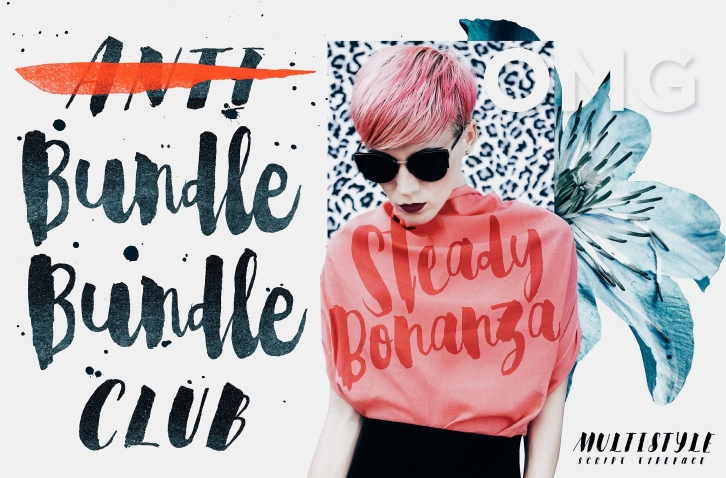
Fashion is a trend, Style lives within a person *Oscar de la Rerta.
I believe everybody's special. You have your own original character in every single appearance. And i feel so addicted to bring that something special in you to be shown to the universe. And that's what it cames from.
Introducing, Steady Bonanza. A versatile hand lettering script typeface to dig up your authentic style. Made from the authenticity of brush and ink character, and delivers with so many style so you can always show up fresh in every use of it.
Undoubtedly fit for your fashion branding, logo, posters, promotions kit, social media post, brochure, quote, lookbook, and a possibility to expand more such as wedding stuff, food and beverage, girly things, hand crafted stuff, you got the full control on it, dont stop yourself!
Steady Bonanza Alfa : An all-caps handwritten brush script font with thick and thin style and wide negative space, contains uppercase, lowercase, numbers, punctuations, multilanguage support and ligature for double letters.
Steady Bonanza Bravo : A total different set from the Alfa one, i play with an lowercase style letters but in the same size as the other one, mix it up while you can :)
Steady Bonanza Charlie : Another one.
Steady Bonanza Script : A bold and jaggy hand-lettered script typeface with a strong characters in it. She take the part as a headline, a solid punch if you mix it up with all of those 3 before to make a stand out statement in your design. contains uppercase, lowercase, numbers, punctuations, multilanguage support and ligature for double letters too on it, yes i copy-paste the description from above.
Steady Bonanza Script Too : It takes part as an alternates for the one before, so you can mix the letters in every word just in case you want to deceive the font usage so it looks like a total hand-lettered design.
"Style is a way to say who you are, without having to speak" - Rachel Zoe